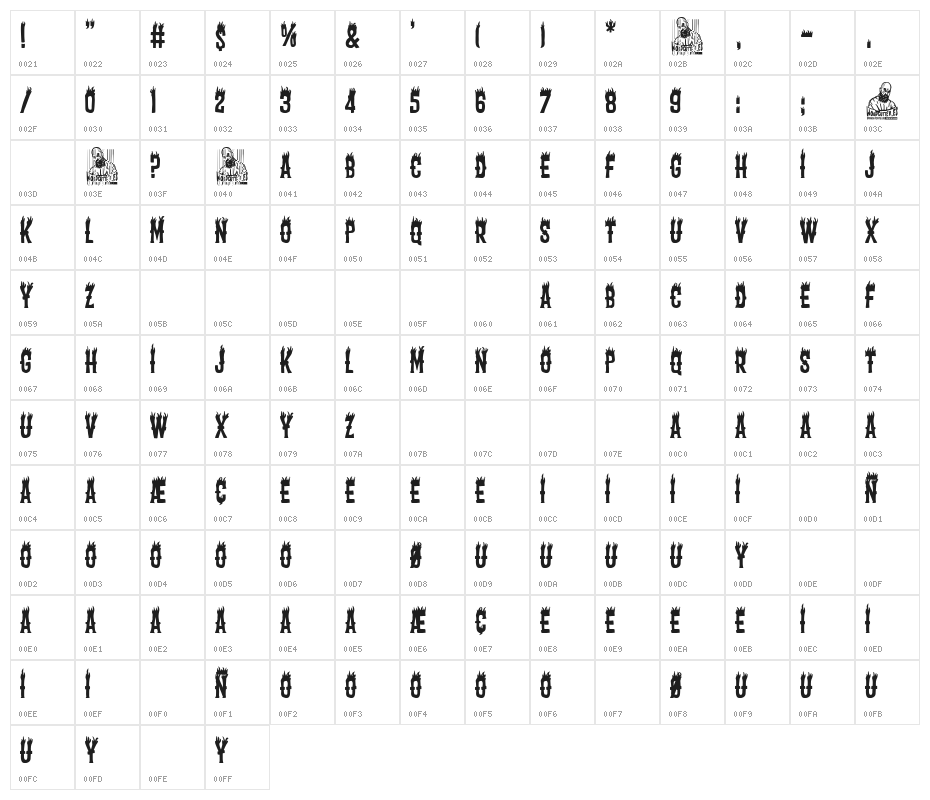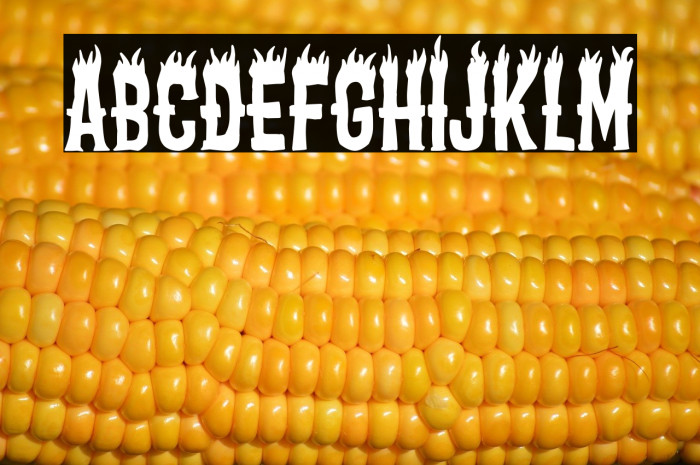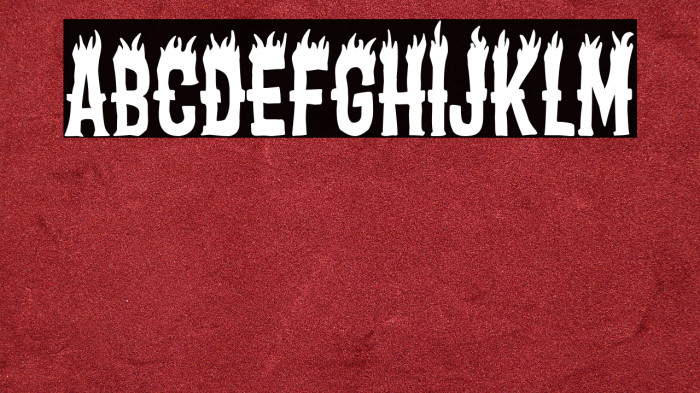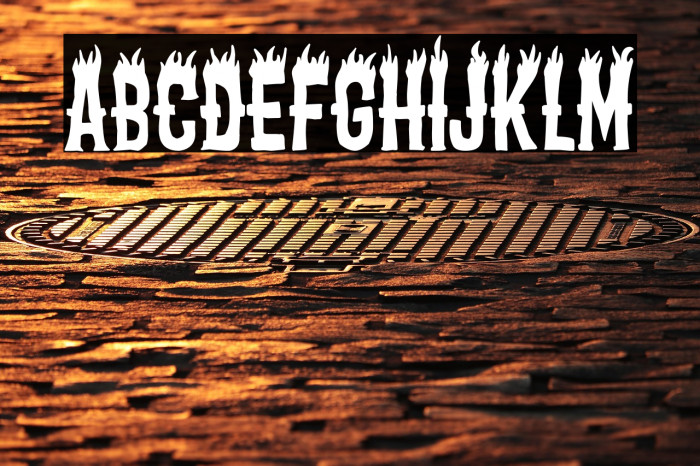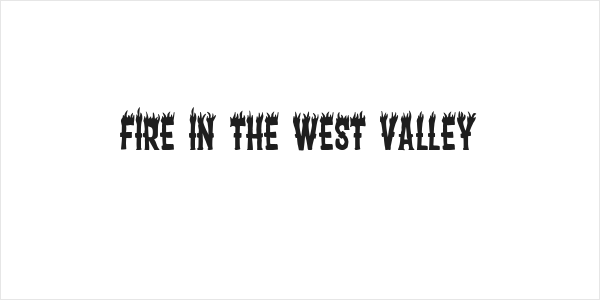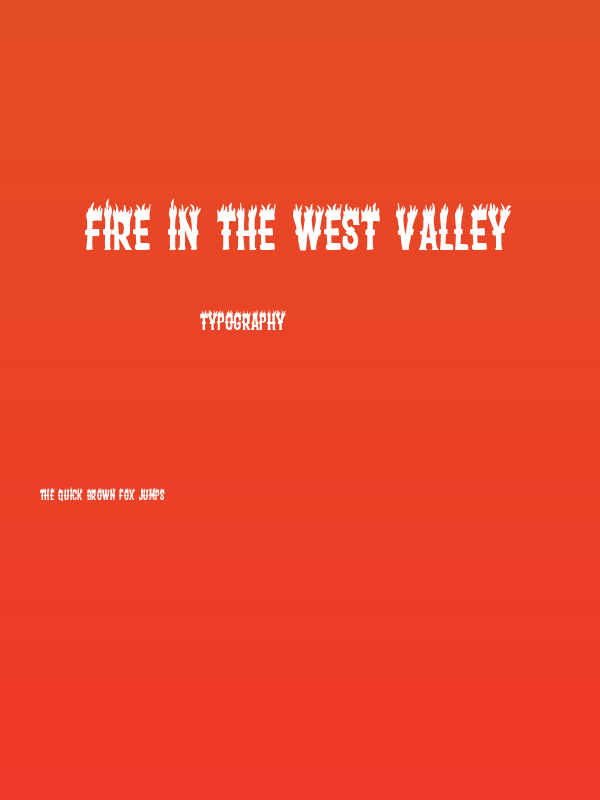
Fire in the West Valley Font
Fire in the West Valley Description
This font features a dramatic and fiery design, with each character appearing as if it is engulfed in flames. The bold and dynamic style captures attention immediately, making it ideal for impactful and energetic designs. The uppercase letters are particularly striking, with flames extending from the top of each character, while the lowercase letters maintain the same fiery theme. Numbers and special characters are also designed with the same flame motif, ensuring consistency across all text elements. The font's unique style makes it suitable for projects that require a bold statement or a theme related to fire, energy, or excitement.
| Proposed Projects | Ideal for event posters, music album covers, video game titles, and branding for fire-related themes. |